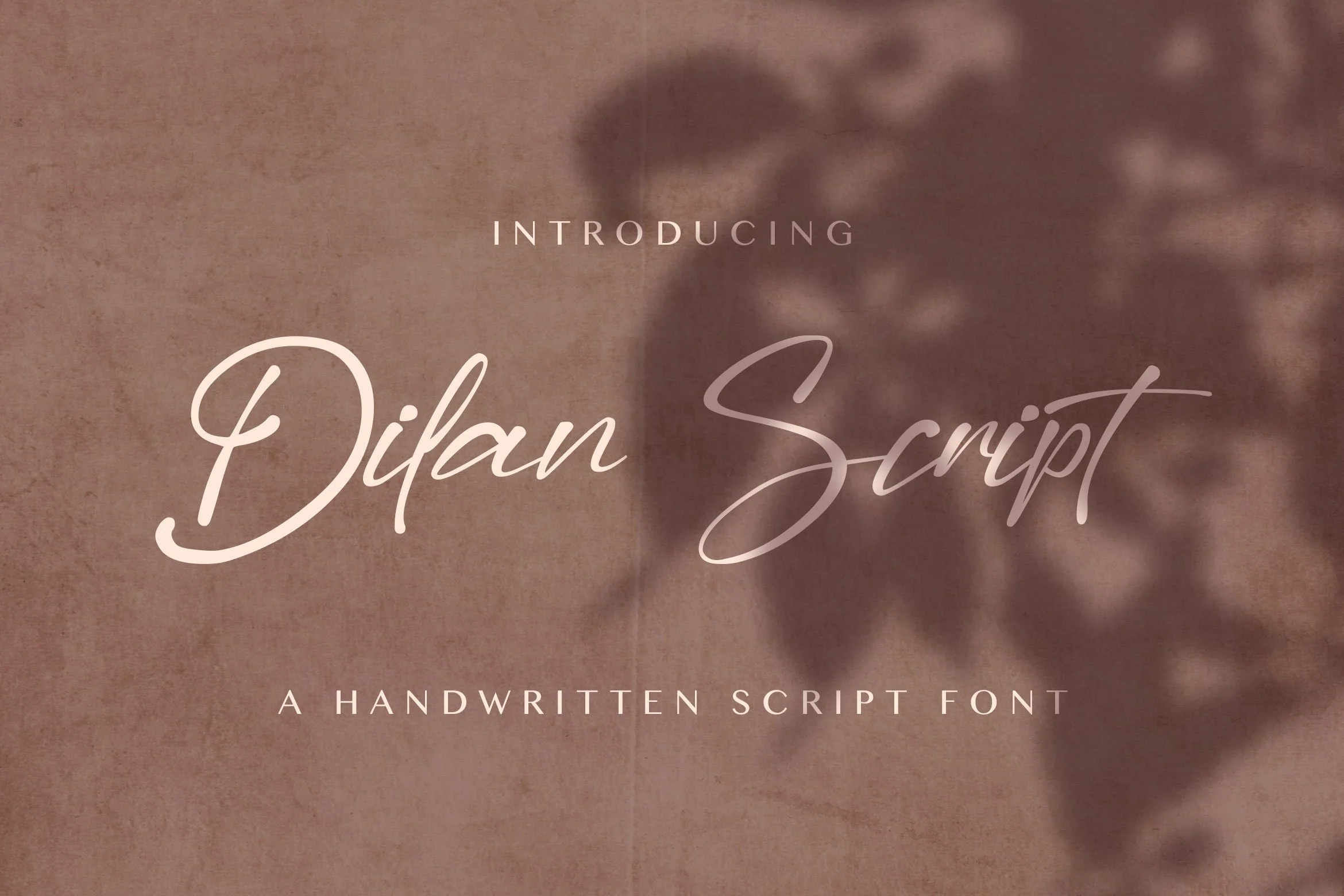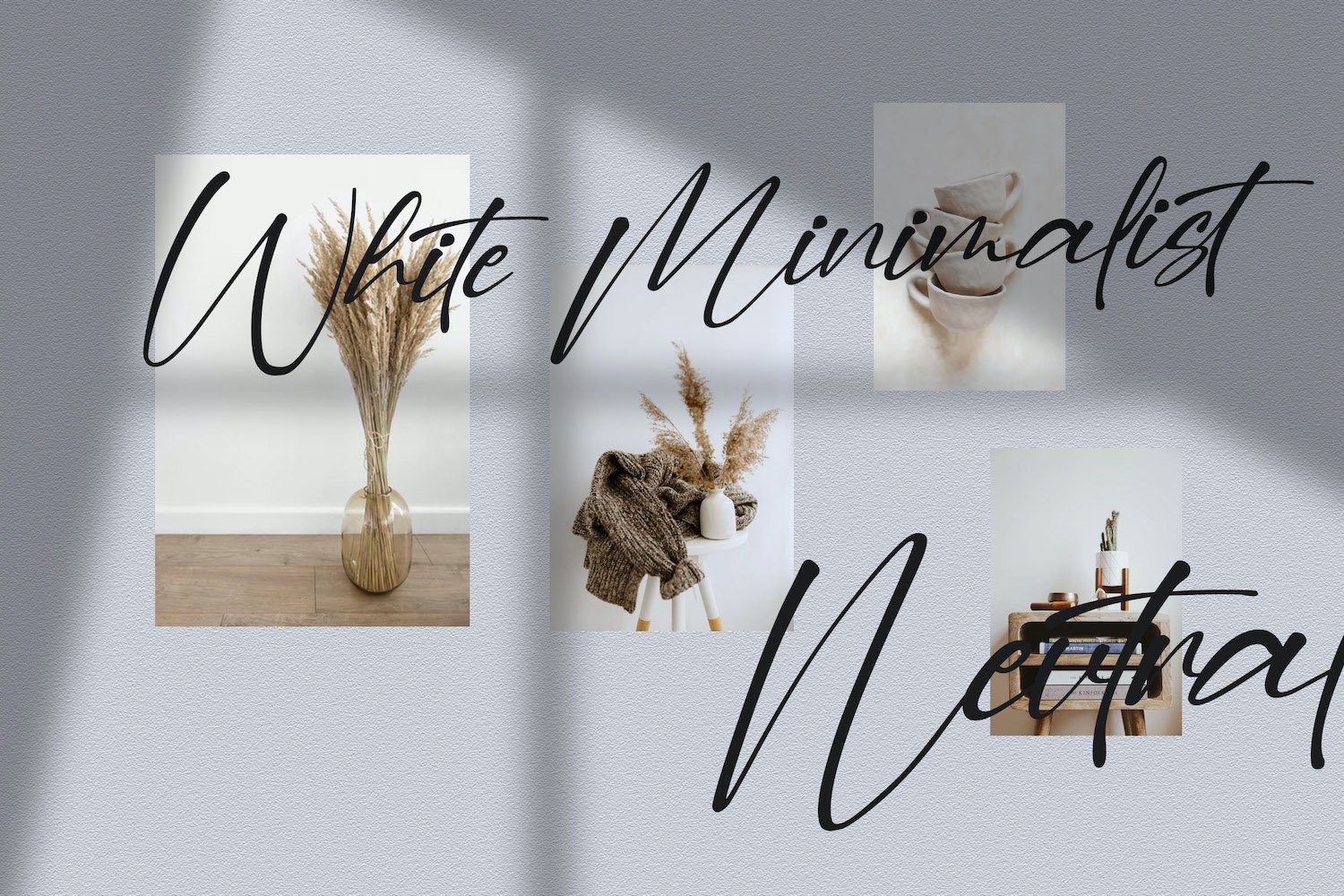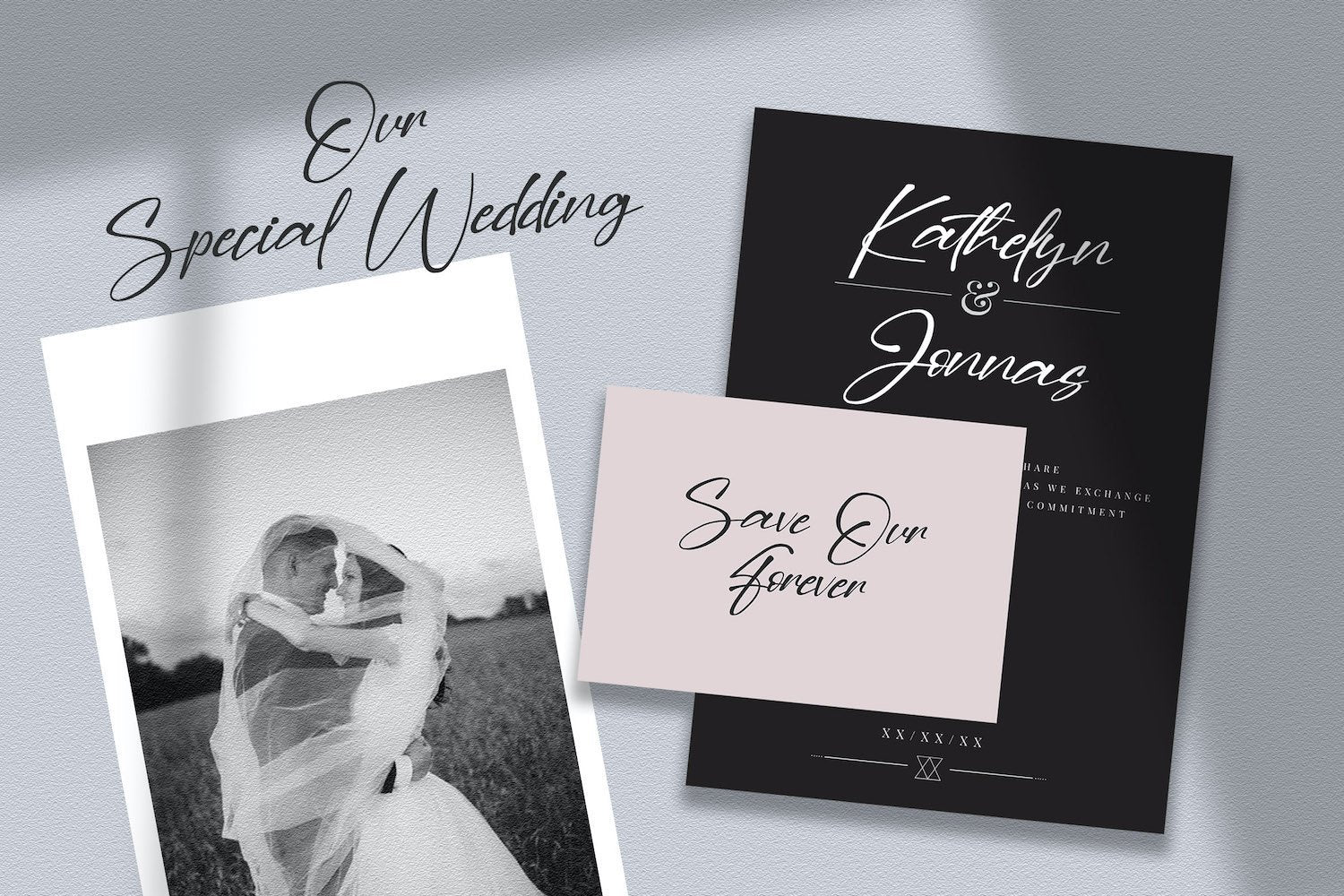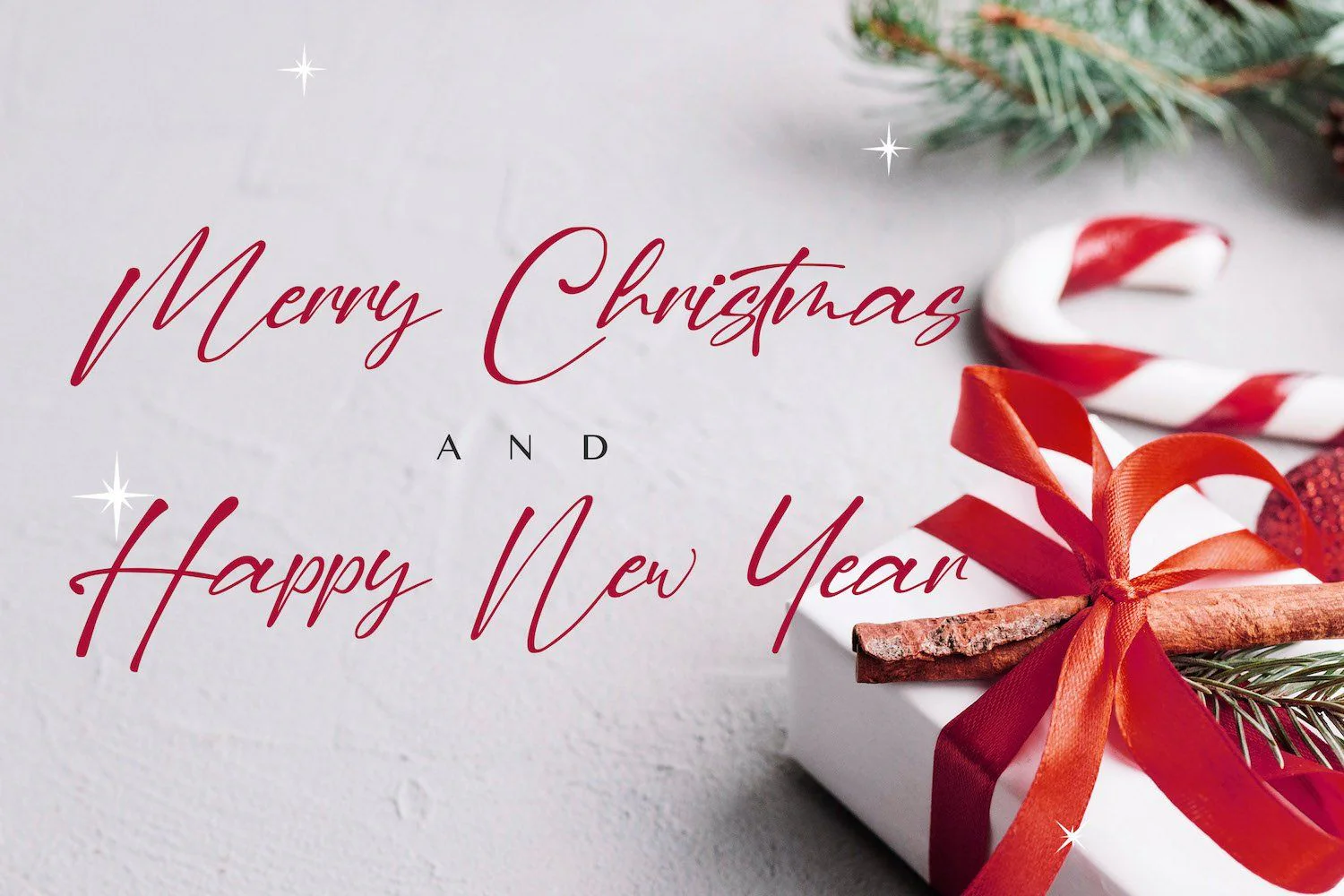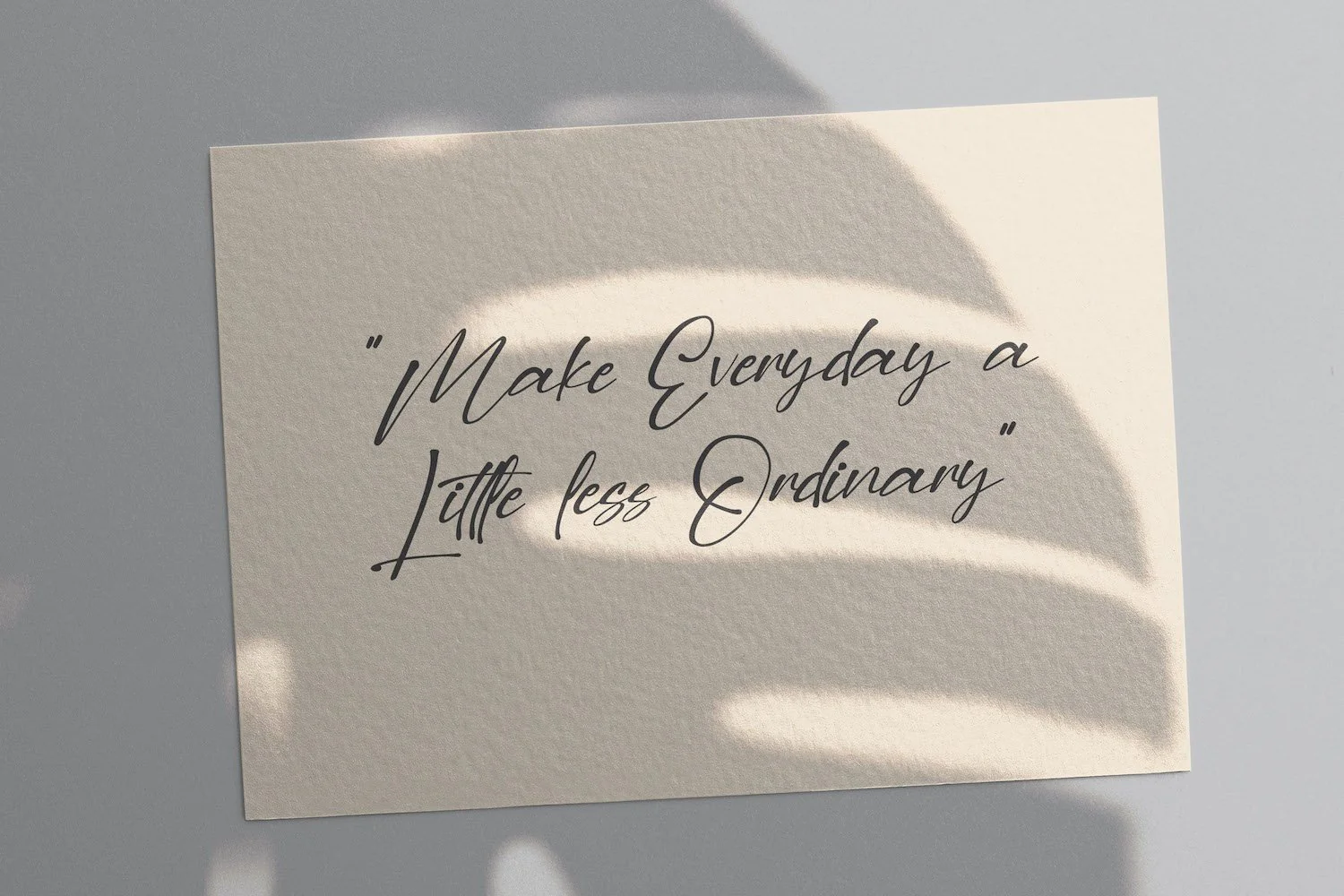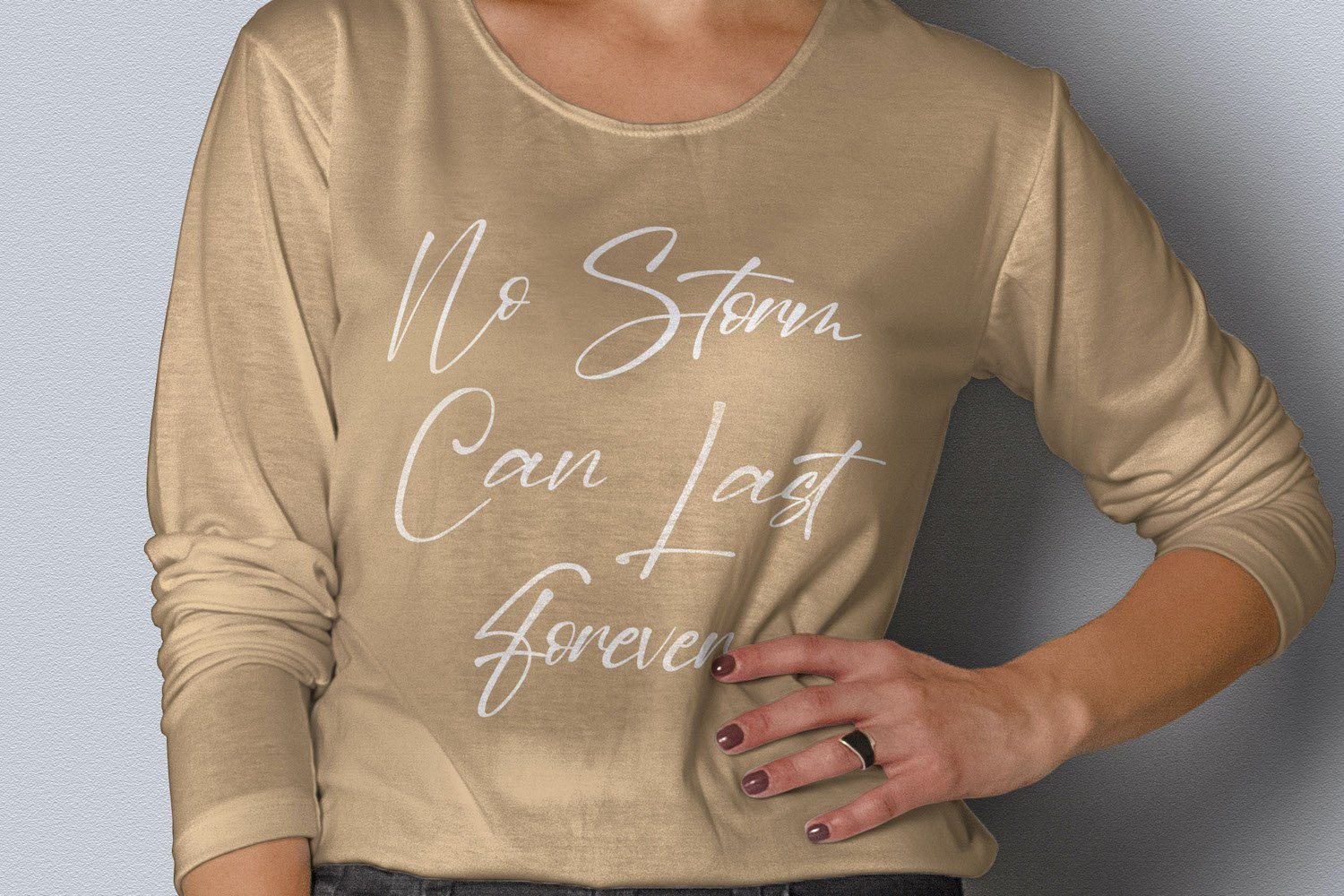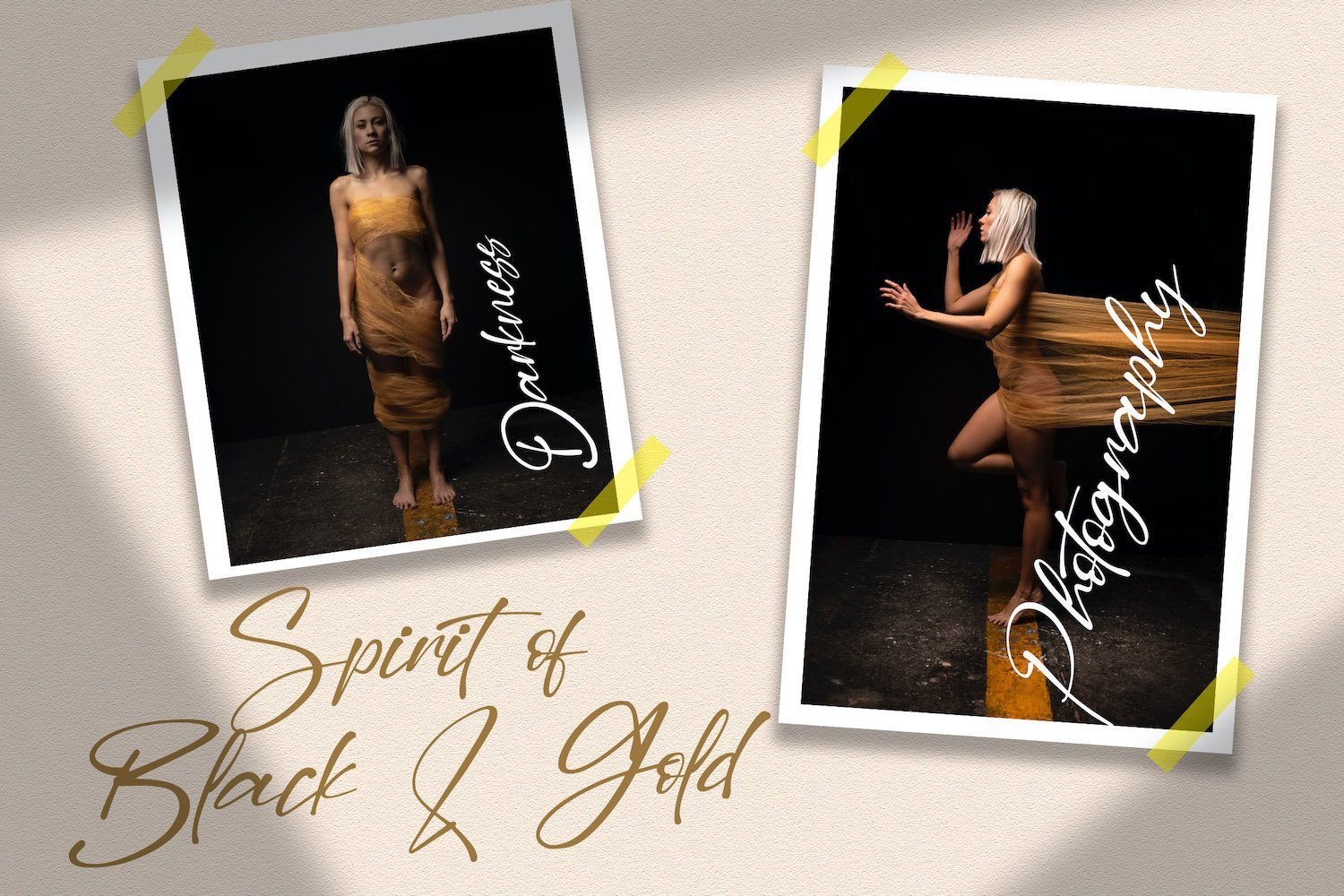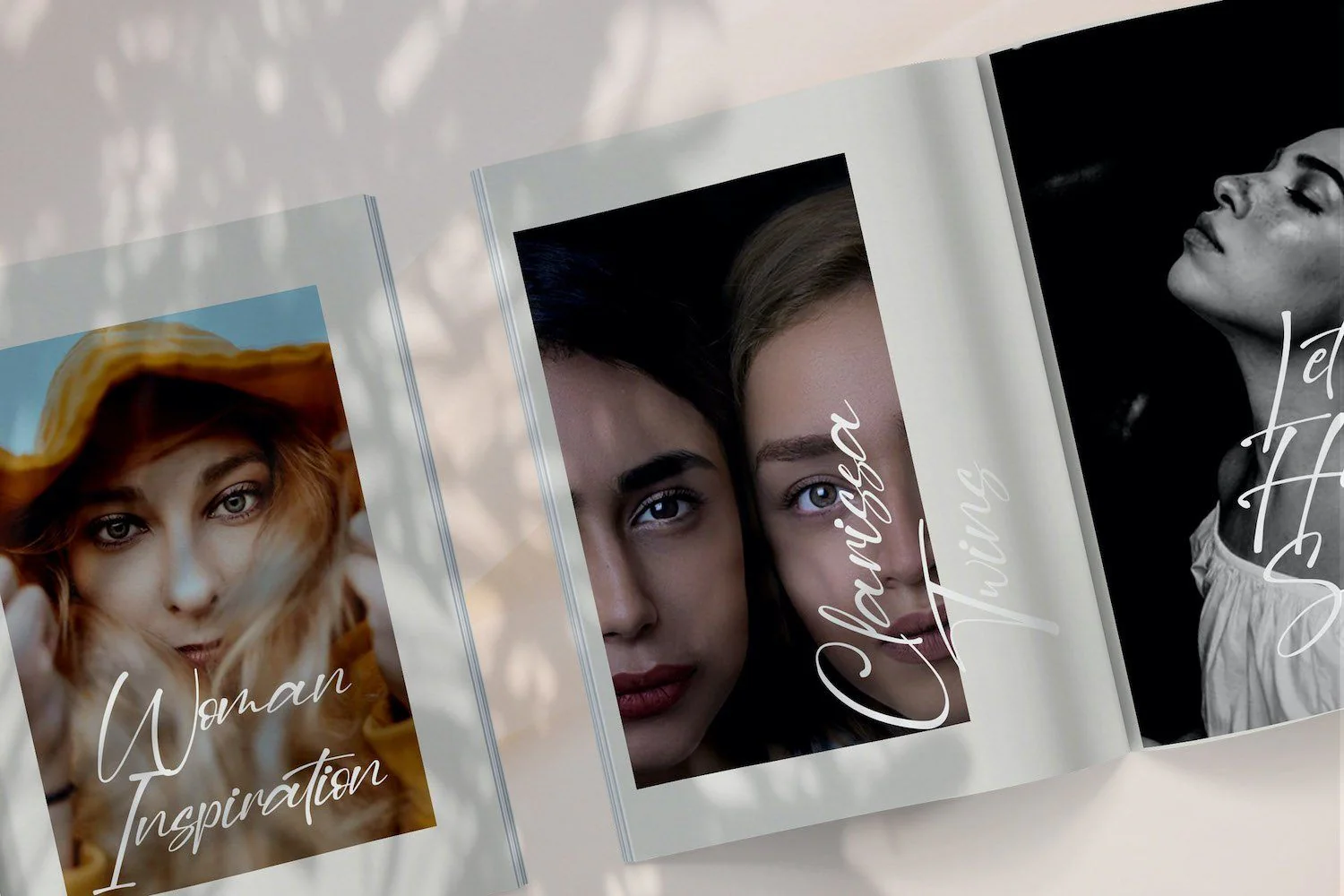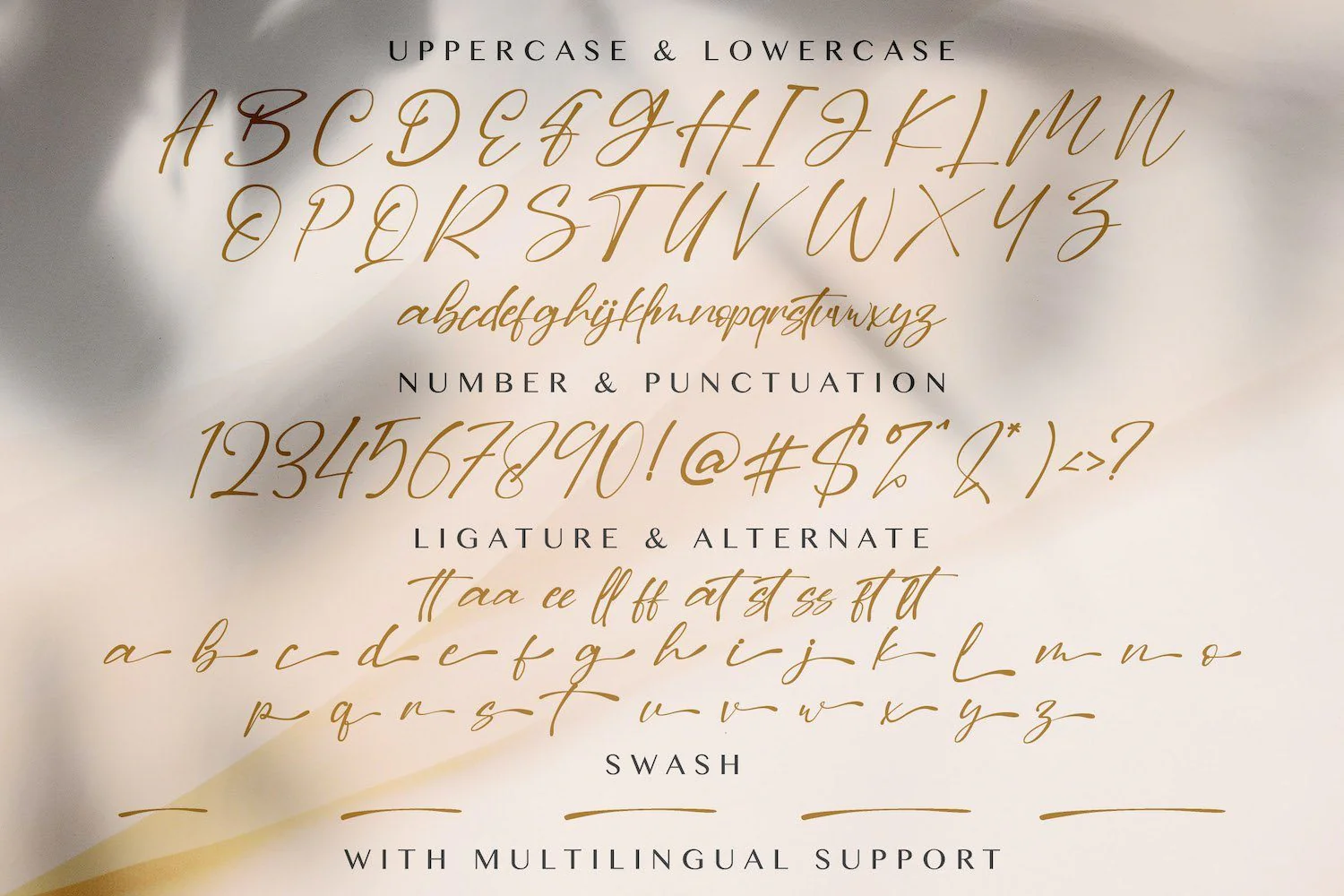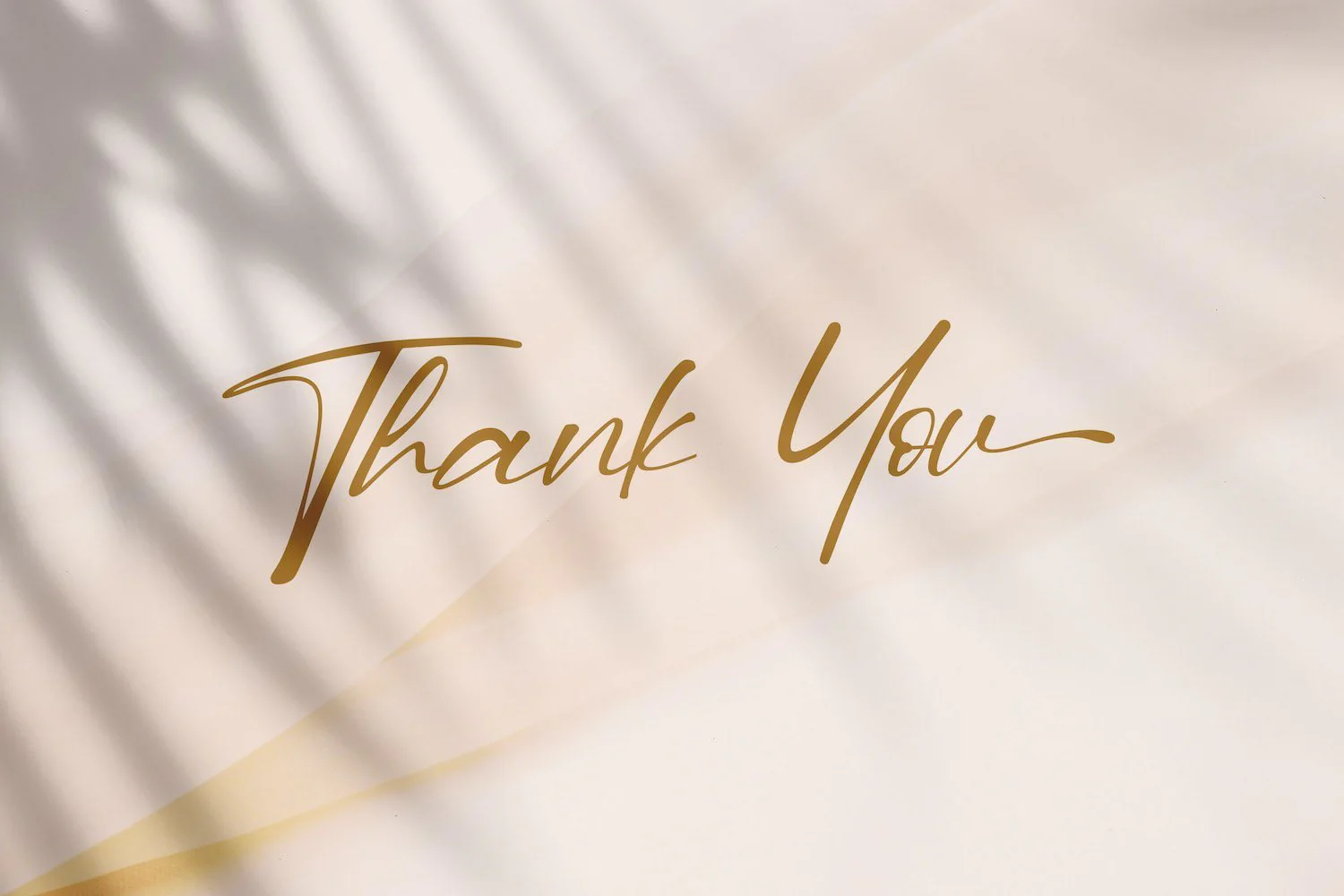
Dilan Script - Handwritten Font
Introducing Dilan Script - Handwritten Font
Dilan Script is a delicate, elegant and flowing handwritten font. It has beautiful and well balanced characters and as a result, it matches a wide pool of designs. Add it to your most creative ideas and notice how it makes them come alive!
- Swash
Introducing Dilan Script - Handwritten Font
Dilan Script is a delicate, elegant and flowing handwritten font. It has beautiful and well balanced characters and as a result, it matches a wide pool of designs. Add it to your most creative ideas and notice how it makes them come alive!
- Swash